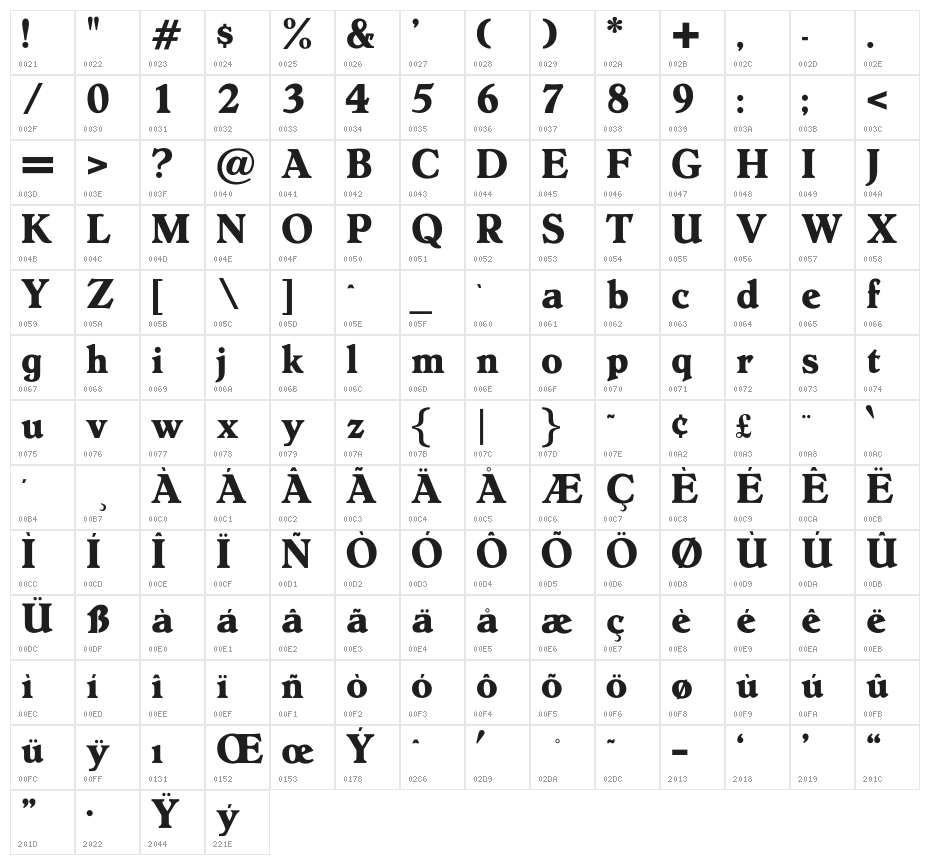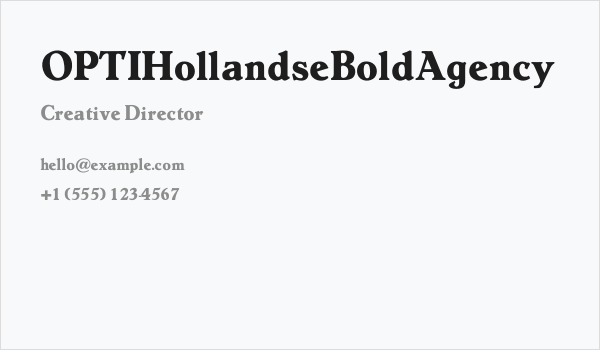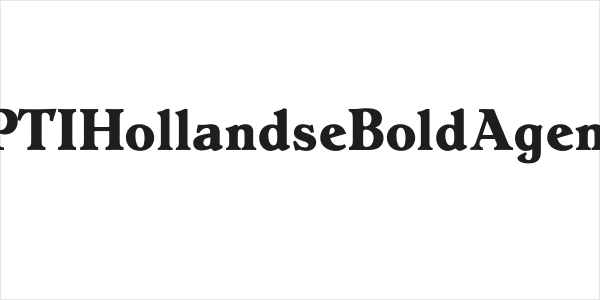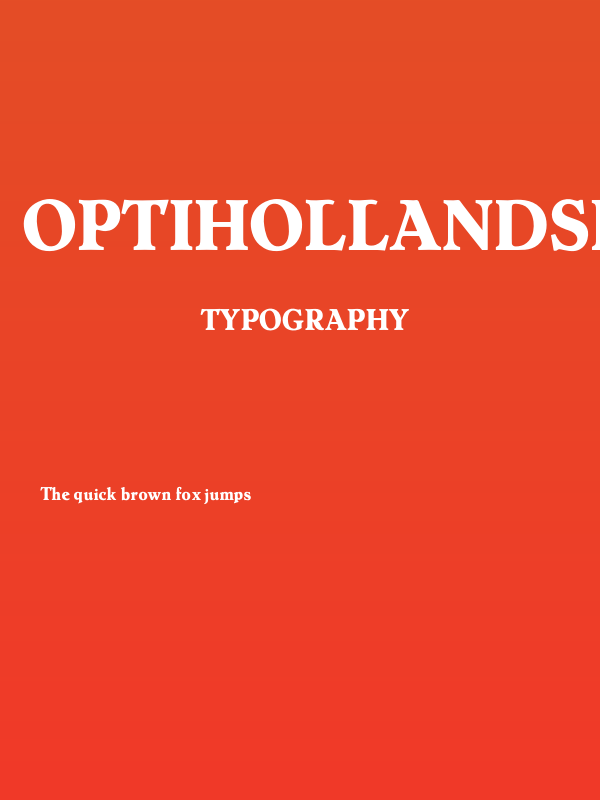
OPTIHollandseBoldAgency Font
OPTIHollandseBoldAgency Description
This font exhibits a bold and commanding presence, characterized by thick, strong strokes and a classic serif design. The uppercase letters are robust and authoritative, while the lowercase letters maintain a consistent weight, providing a harmonious balance. The numerals are clear and legible, with a traditional style that complements the overall aesthetic. Special characters are distinct and well-defined, enhancing the font's versatility. The serifs are pronounced, adding a touch of elegance and sophistication to the typeface. This font is well-suited for projects that require a bold statement and a touch of classic charm.
| Proposed Projects | Ideal for headlines, book covers, posters, and branding materials that require a bold and classic look. |